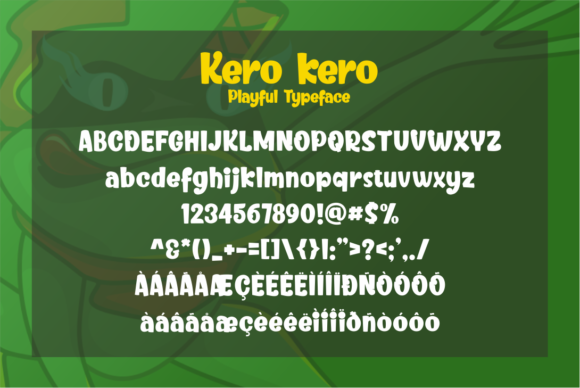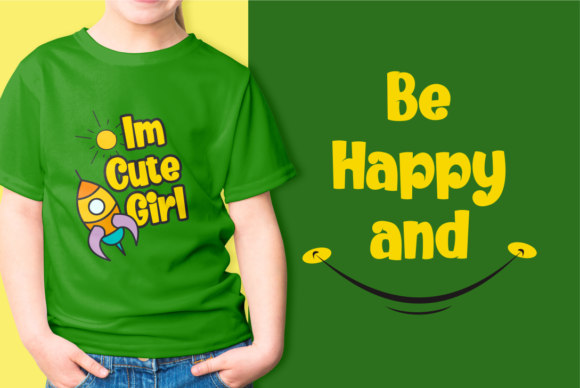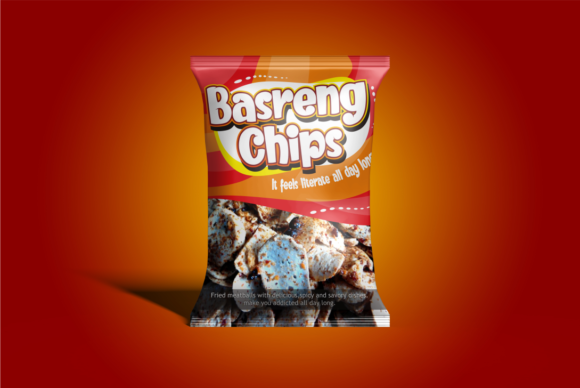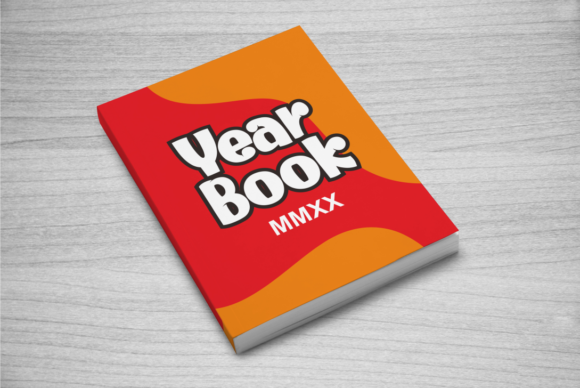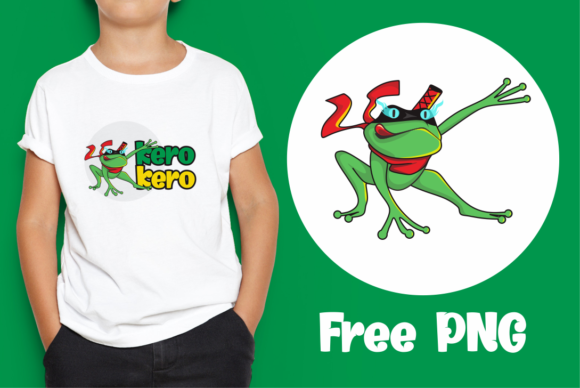
Introduction to Kero Kero Font
kero kero embodies fun, quirkiness and authenticity.
This enchanting display font will turn any creative idea into a true standout Get creative with its childlike playfulness, and use it to brighten up any kids and school project.
Key Features of Kero Kero Font